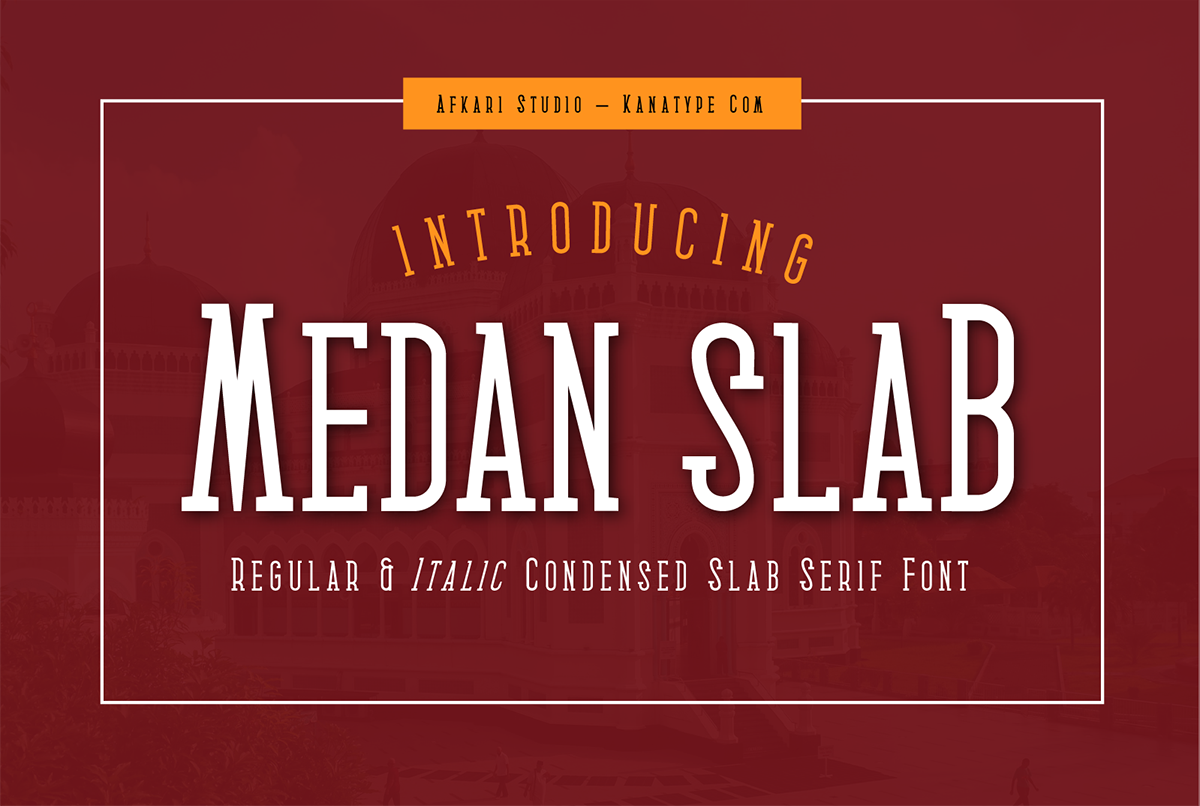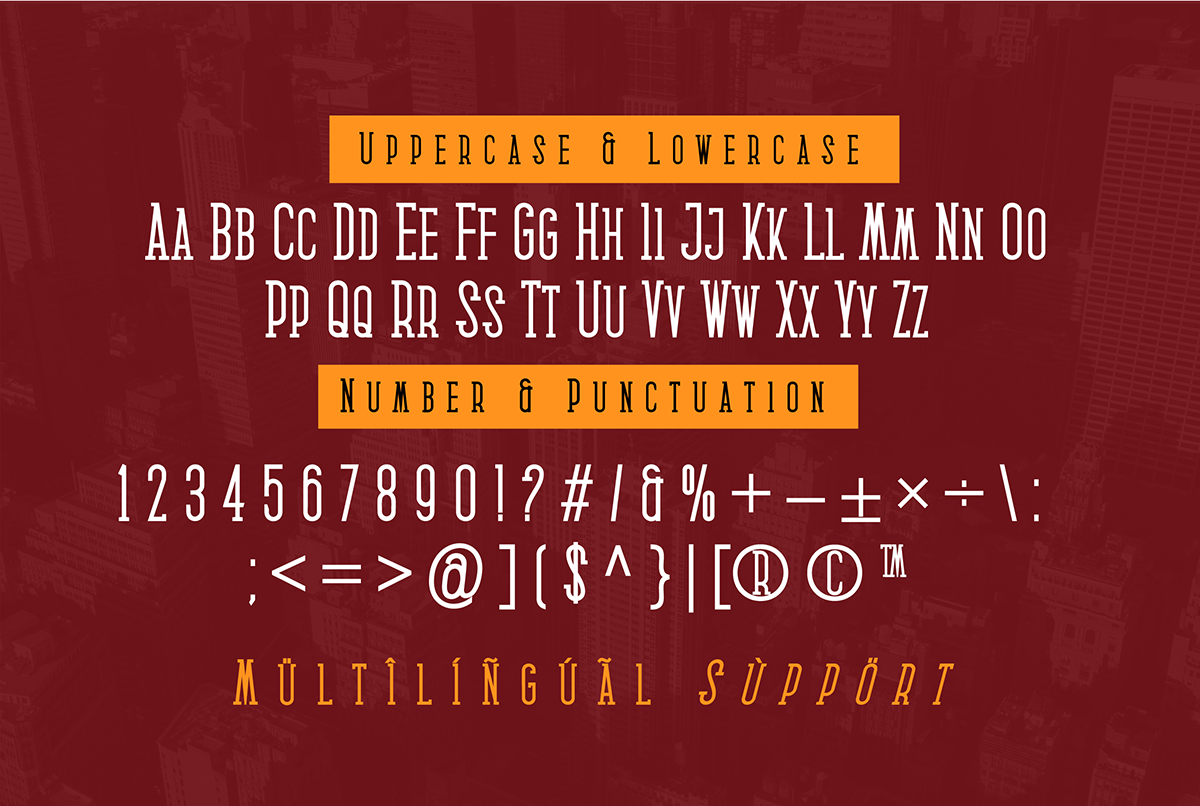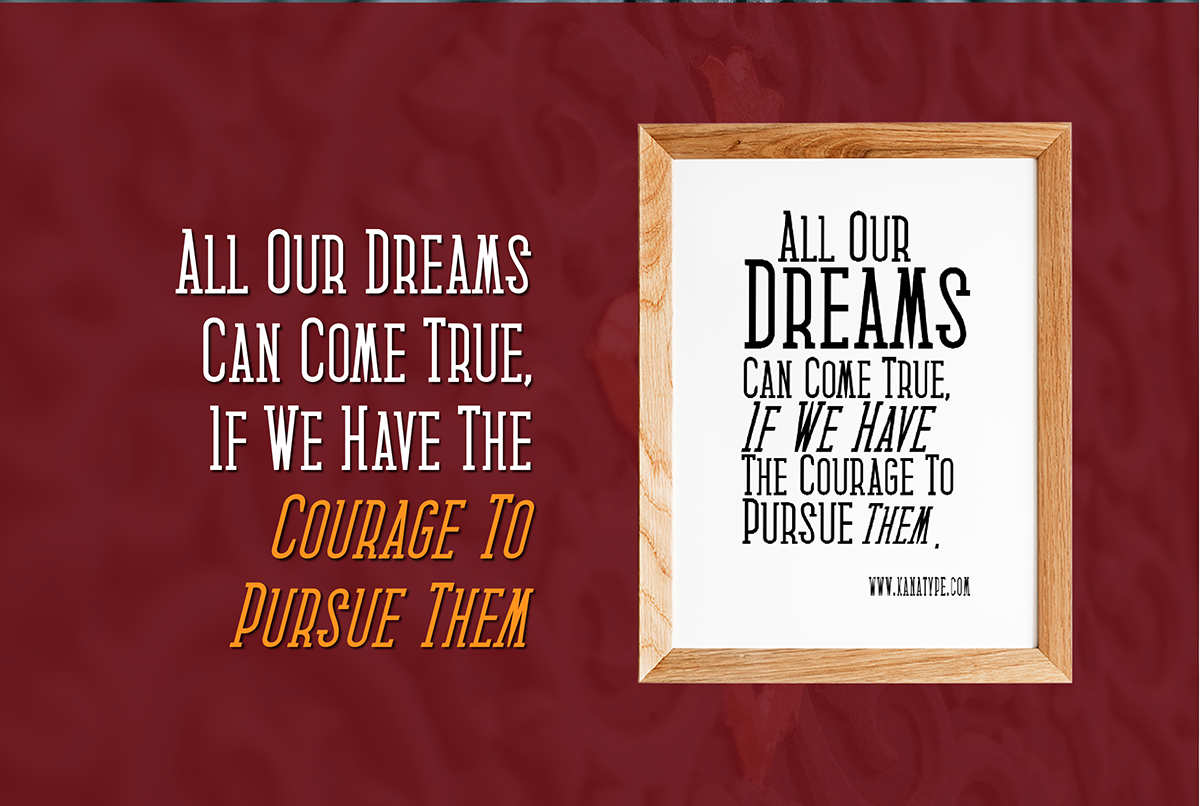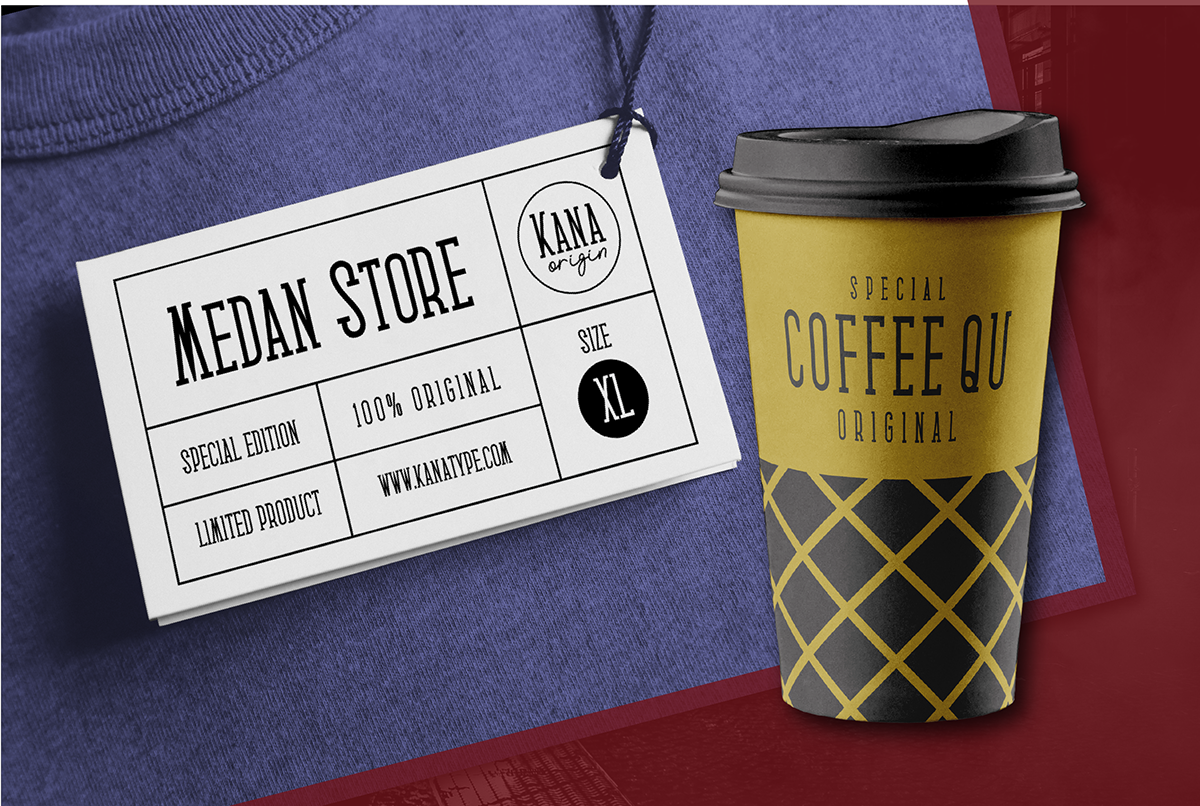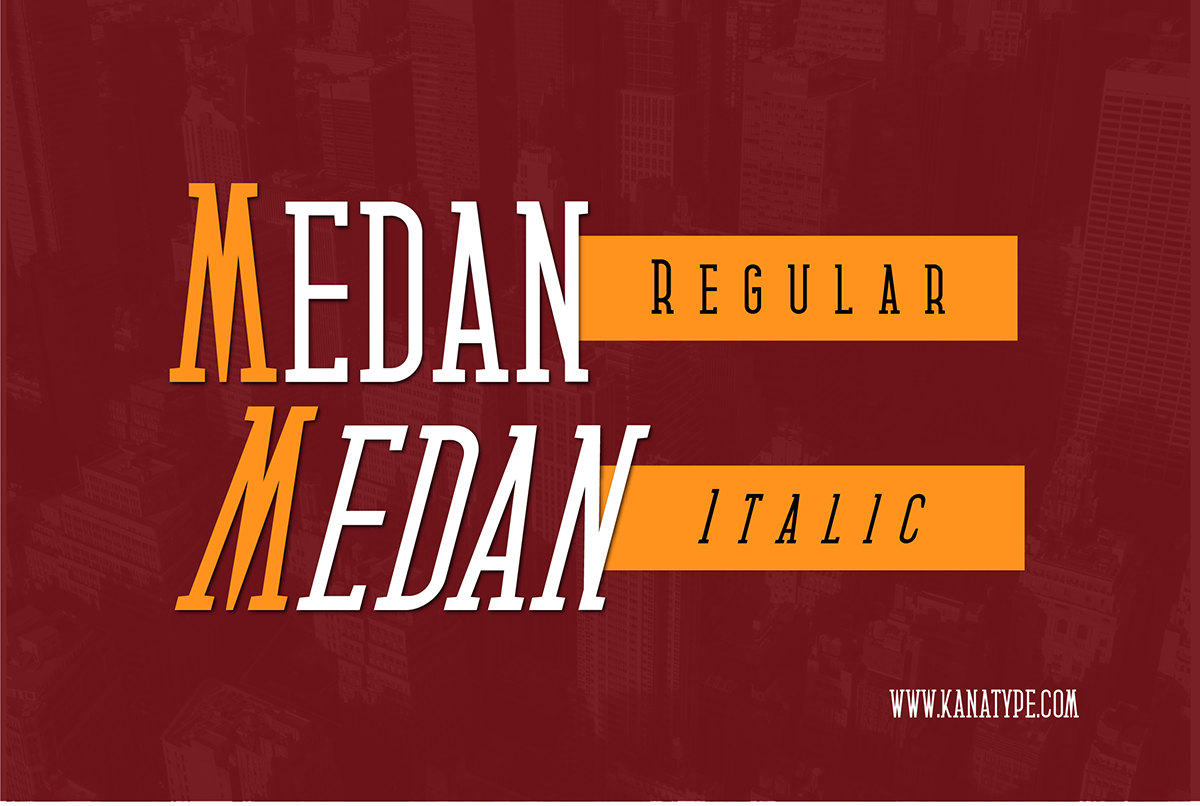
Medan Slab-Slab Serif Font is an Elegant Condensed Slab serif with solid font files. Suitable for branding, business card, stationary, logo, label, and other prints as well. Medan Slab Condensed Slab Serif Font will also be suitable for digital use such as social media post, and web font too.
Features :
– Upper Case & Lowercase (All Caps)
– Numerals & Punctuations (OpenType Standard)
– Accents (Multilingual characters)